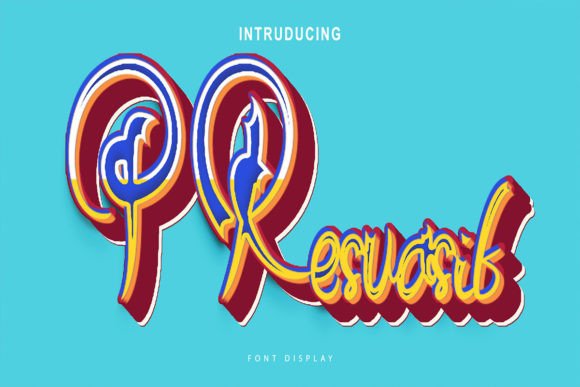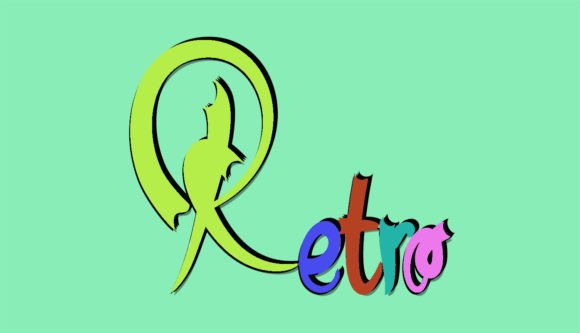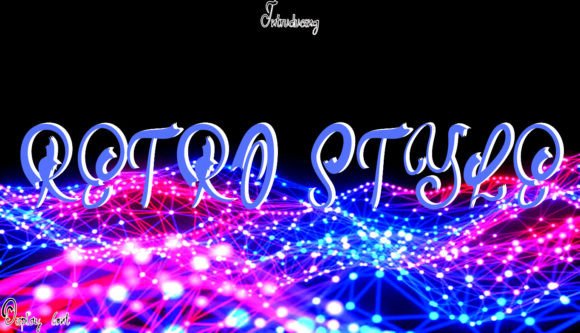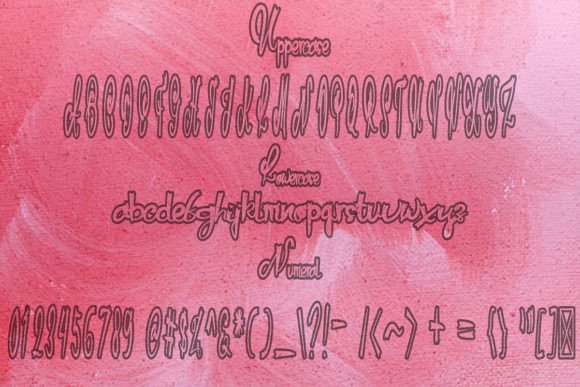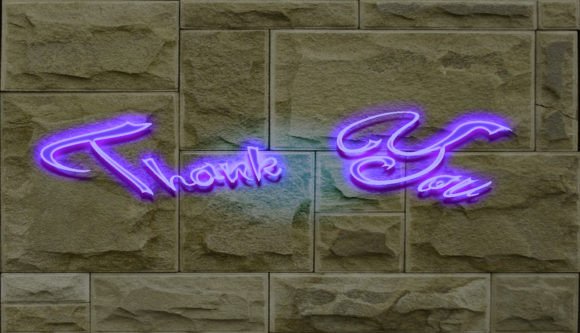
Retro Style Font
About Retro Style Font
Retro Style is a cool and casual handwritten font that embodies charm and trendiness in every character. It is suitable for any branding project like logos, t-shirt printing, sports designs, and more. It will look outstanding in a wide range of contexts.